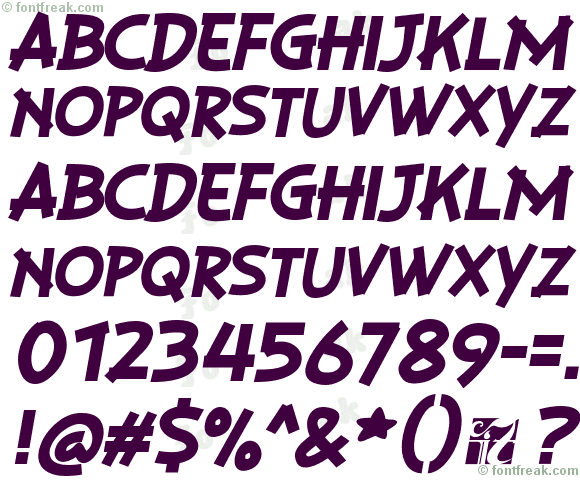
PLAYSIR
PLAYSIR Italic
PLAYSIR by Situjuh Nazara is a striking display font that captures attention with its unique and playful design. Created in 2014, this font stands out as a decorative typeface that combines modern aesthetics with artistic flair. The visual characteristics of PLAYSIR are marked by bold stroke weights and a lively, italicized style that gives it an energetic feel. The letters feature a balanced contrast, making them visually appealing while ensuring readability. The spacing is well-considered, allowing for a smooth flow in text, and the design includes whimsical decorative elements that enhance its charm.
This font is particularly versatile, making it ideal for a variety of use cases. It shines in wedding invitations, where its elegant yet playful nature can set the perfect tone for a joyous occasion. PLAYSIR is also suitable for movie posters, lending a dynamic feel that can capture the essence of the film. Additionally, it works wonderfully for restaurant menus, helping to create a vibrant atmosphere that entices diners. Graphic designers and small business owners will find this font a valuable asset for branding, as it conveys creativity and approachability. Content creators can also leverage PLAYSIR for social media graphics, ensuring their posts stand out in crowded feeds.
What makes PLAYSIR particularly notable is its ability to blend fun with sophistication. The playful elements of the design invite engagement while maintaining a level of professionalism that is suitable for various contexts. With its freeware license, the PLAYSIR font free download is accessible to anyone looking to enhance their projects with a fresh, distinctive typeface. Embrace the creativity that PLAYSIR offers and elevate your designs to new heights.